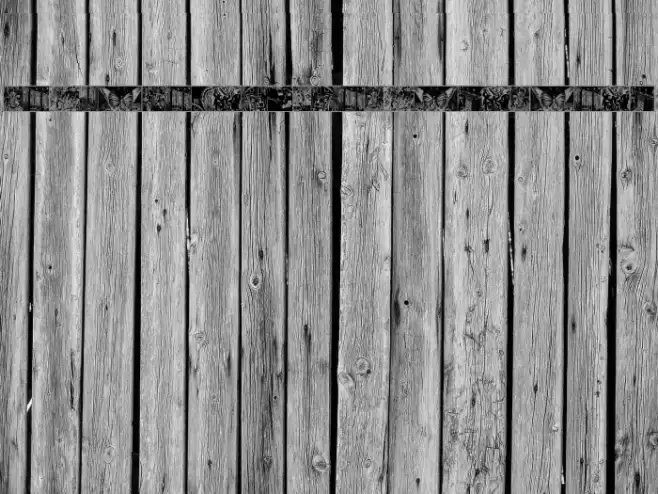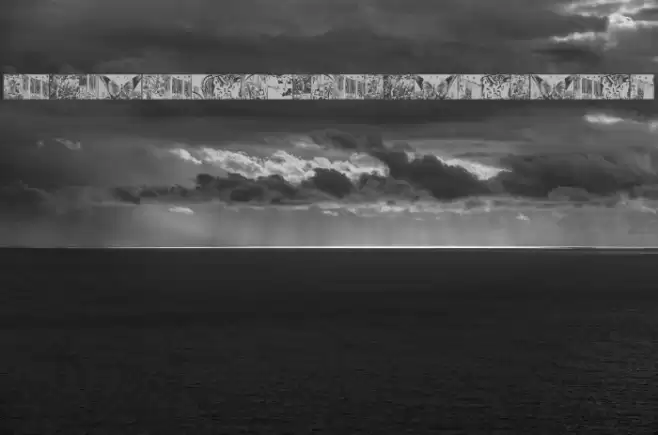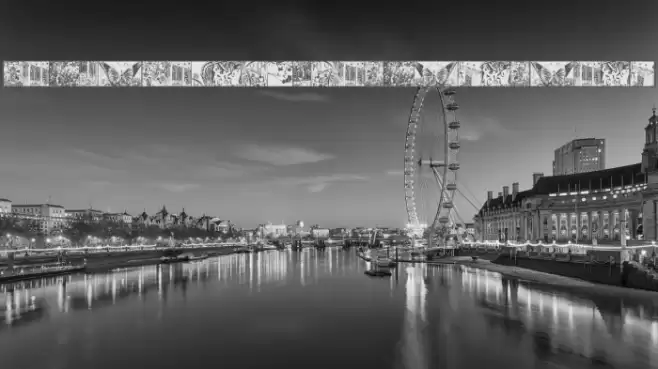
NightlifeRoaringTwenties Font
NightlifeRoaringTwenties Description
This is not a valid font. The image appears to be a collection of intricate, detailed illustrations depicting scenes from the Roaring Twenties nightlife. The artwork is rich in texture and complexity, showcasing various social gatherings, dance scenes, and architectural elements typical of the era. The style is reminiscent of Art Deco, with bold lines and geometric patterns, capturing the exuberance and dynamism of the 1920s.
The image contains detailed illustrations of 1920s nightlife, not a font from Uncategorized fonts.
- Proposed Projects: This artwork could be used for historical exhibitions, themed event decorations, or educational materials about the 1920s.
- Overall Style: Vintage
- Use Case: Decorative artwork, not suitable for text.